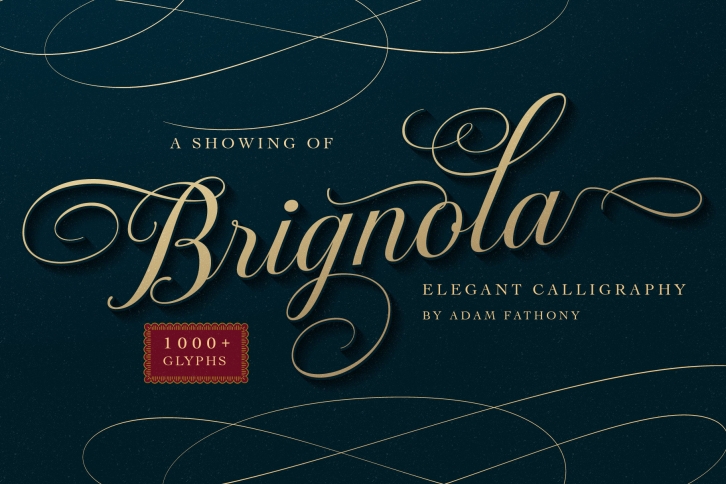
Brignola Elegant Calligraphy is a trendy and unique font with an authentic style. It was designed by AdamFathony and it's a great choice for creative people who need such a font. It was released on July 27, 2019 and the file size is 13.95 MB. Brignola Elegant Calligraphy will add an organic vibe to any design idea!